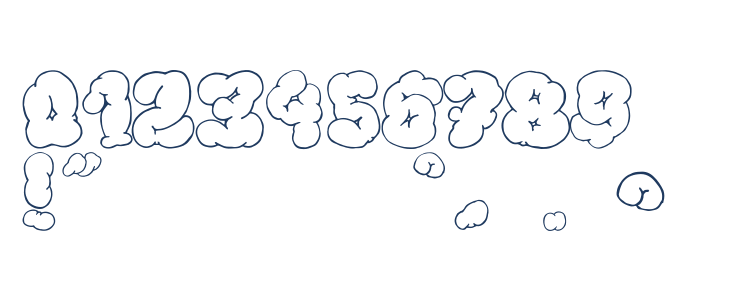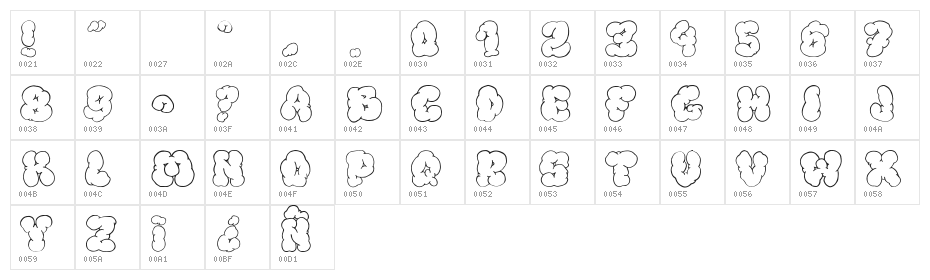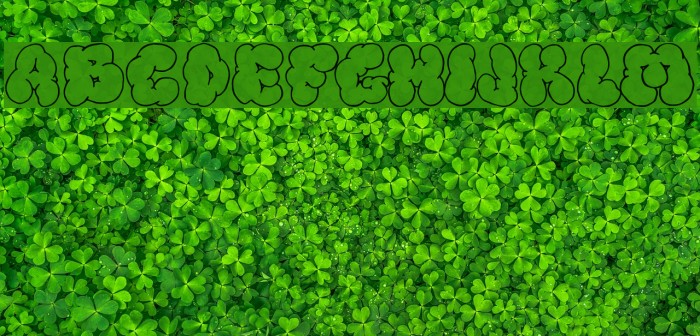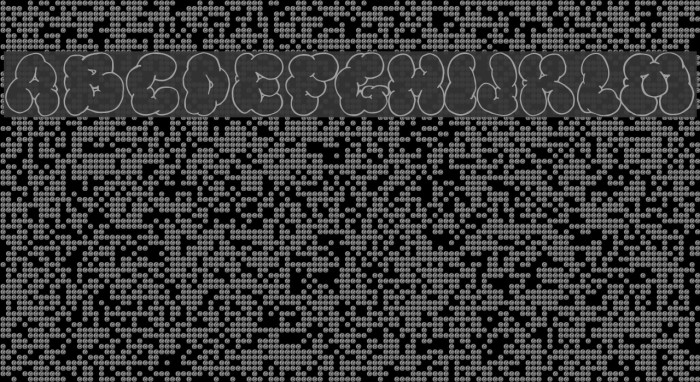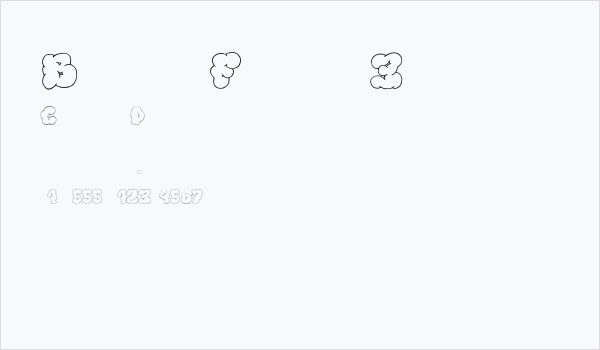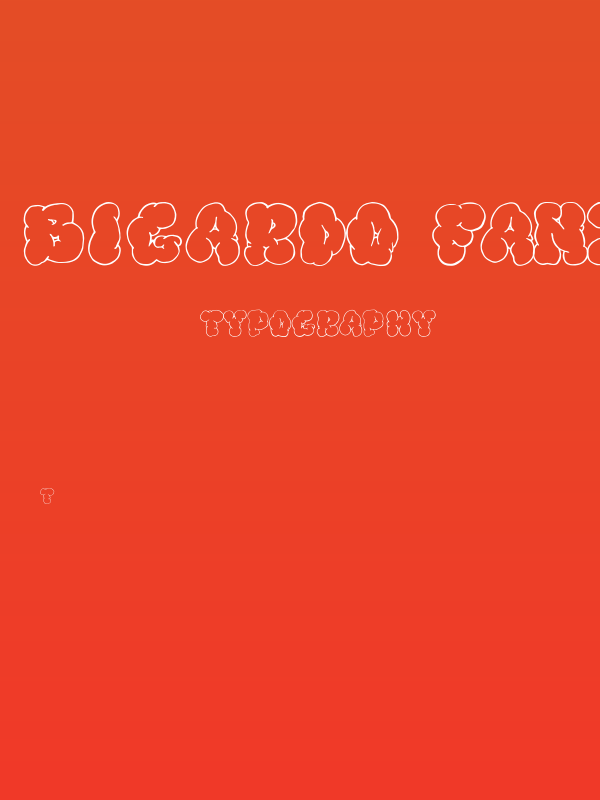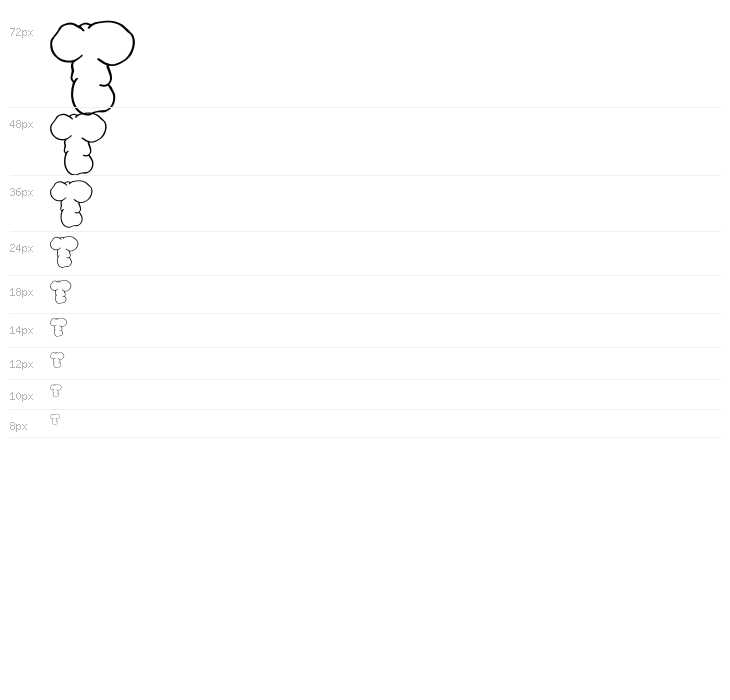
Bigardo Fanzine 3 Font
Bigardo Fanzine 3 Description
This playful and whimsical font features characters that resemble fluffy clouds or cartoonish bubbles. Each letter and number is outlined with a thin line, giving it a distinct and bold appearance. The font's unique style is characterized by its rounded, puffy shapes and the inclusion of small star-like cutouts within each character, adding a touch of fun and creativity. The overall design is highly decorative, making it ideal for projects that require a lighthearted and imaginative touch. Its distinctive appearance ensures that it stands out, making it suitable for eye-catching headlines or artistic designs.
Proposed ProjectsIdeal for children's book covers, playful posters, party invitations, and creative branding.